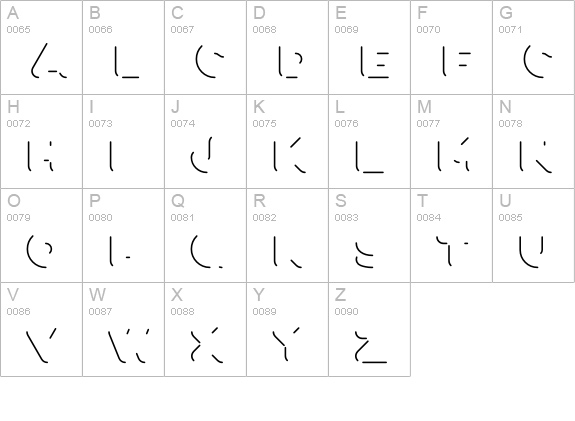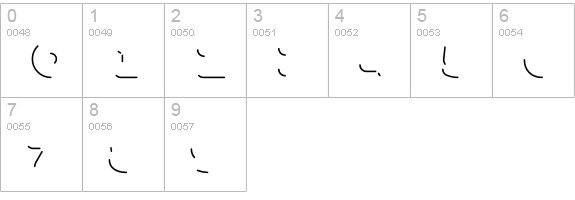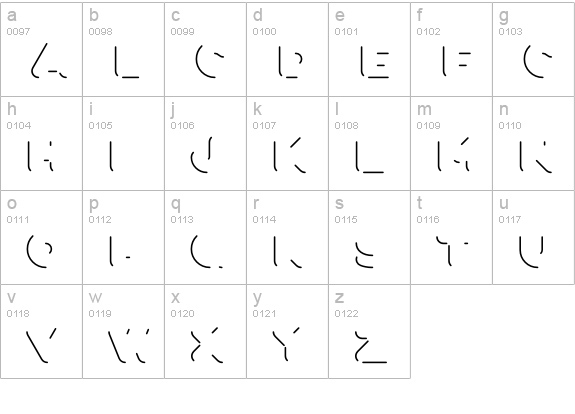
Fun City Level 6 Reflection Font Details
Fun City Level 6 Reflection font is a dynamic and playful typeface that exudes a sense of fun and excitement. With its unique reflection effect, this font is perfect for adding a touch of creativity to your designs. Whether you're working on posters, flyers, or social media graphics, Fun City Level 6 Reflection font will make your text stand out and captivate your audience. What's even better is that Fun City Level 6 Reflection font is freely available to download at FontsMarket.com. You can easily access this font and incorporate it into your projects without any cost. So go ahead and unleash your creativity with Fun City Level 6 Reflection font today!